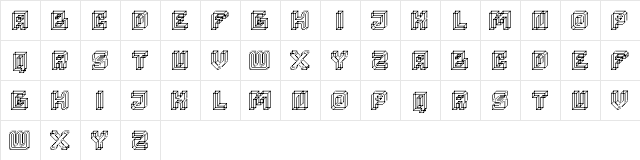
xraymond Regular
Design Context for xraymond Typeface
xraymond is a composed and adaptable typeface that performs quietly and consistently across a wide range of design contexts.